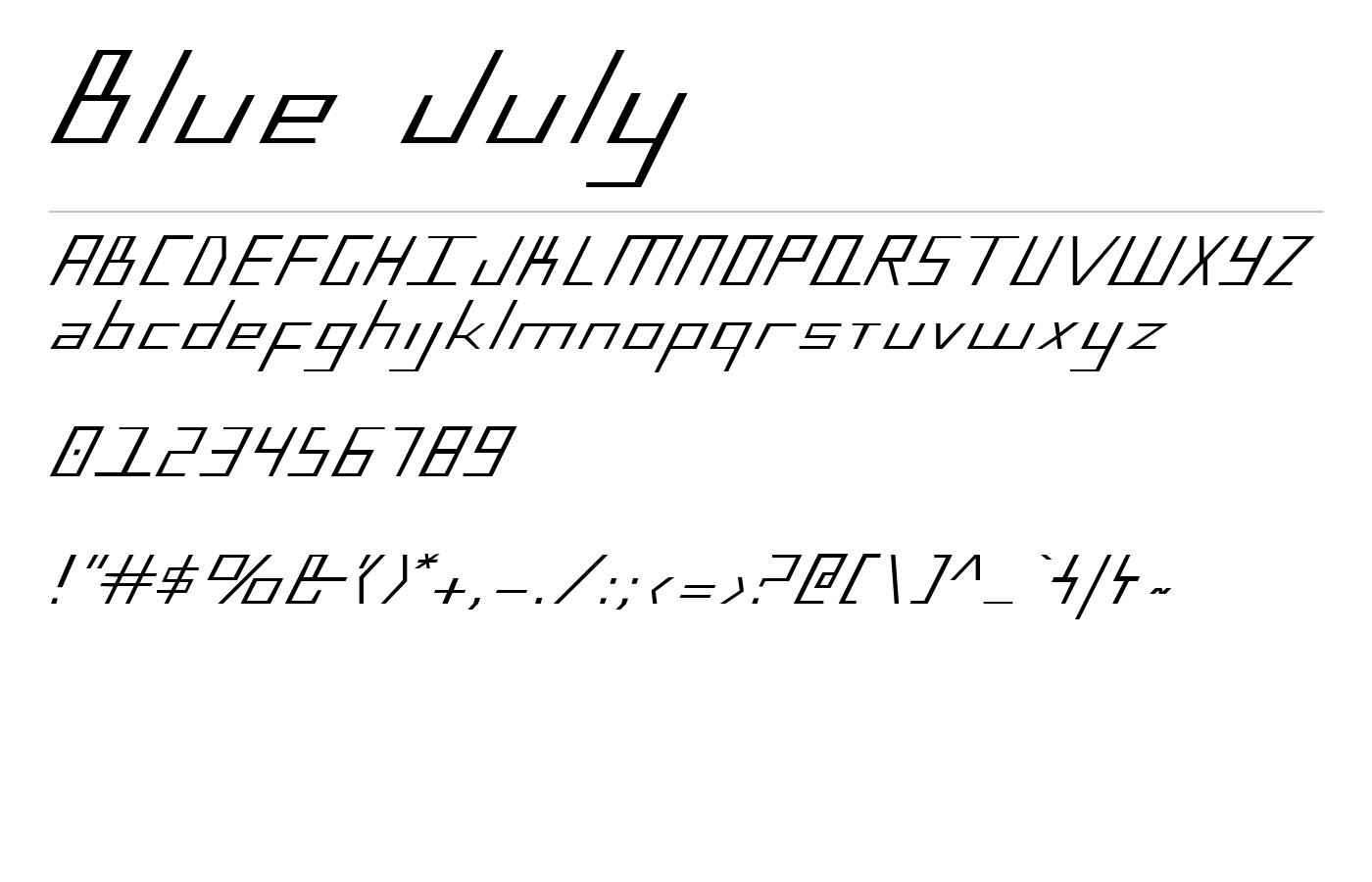
Blue July is a sleek, narrow sans serif font with an angled, futuristic style that feels dynamic and modern. Its light weight and geometric letterforms with sharp, clean edges give it a technical, streamlined look, suited for sports branding, tech projects, or any design seeking a cutting-edge vibe. This font works best in headlines or logos where its unique personality can stand out boldly.
Blue July Font
About Blue July Font